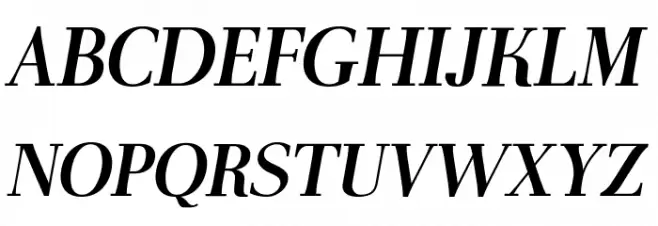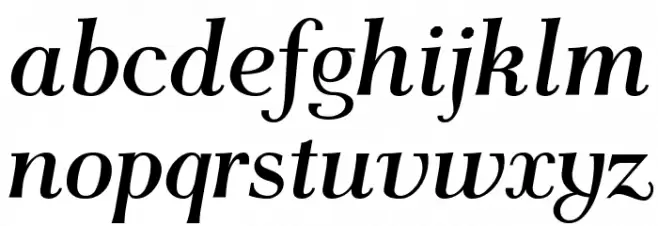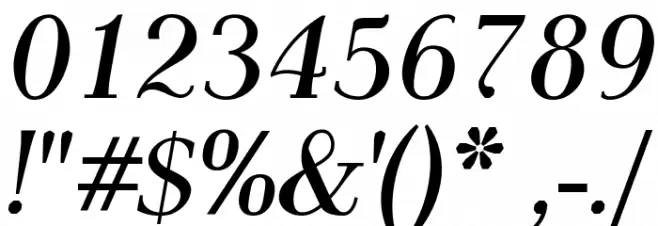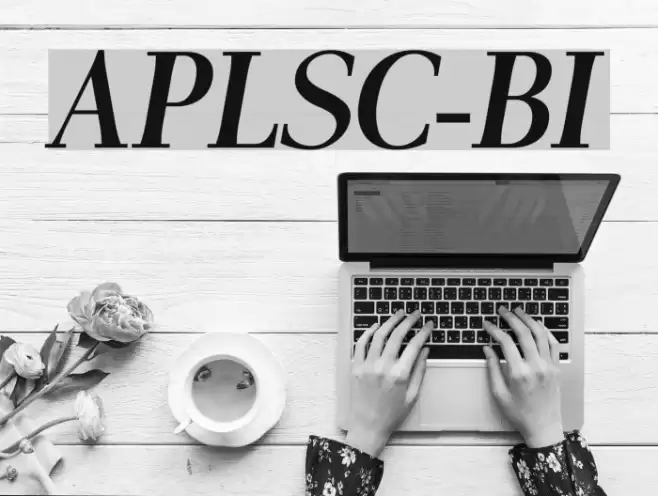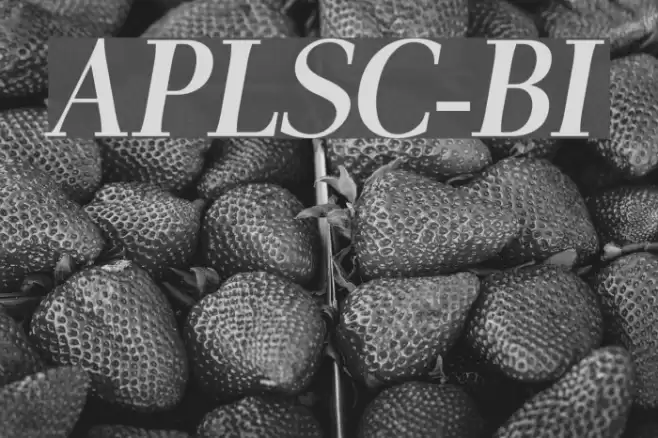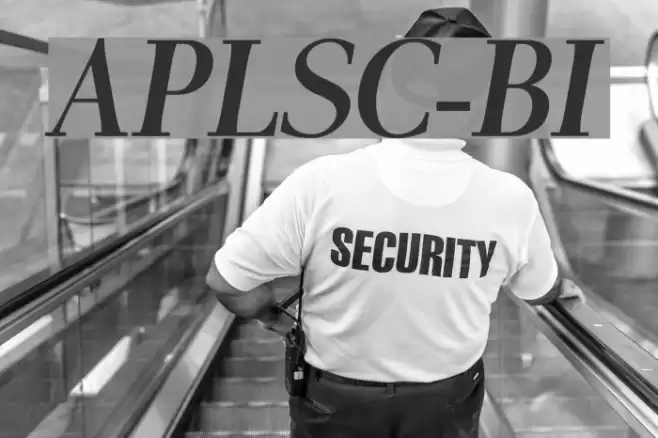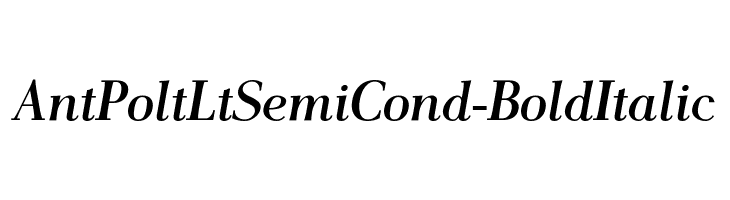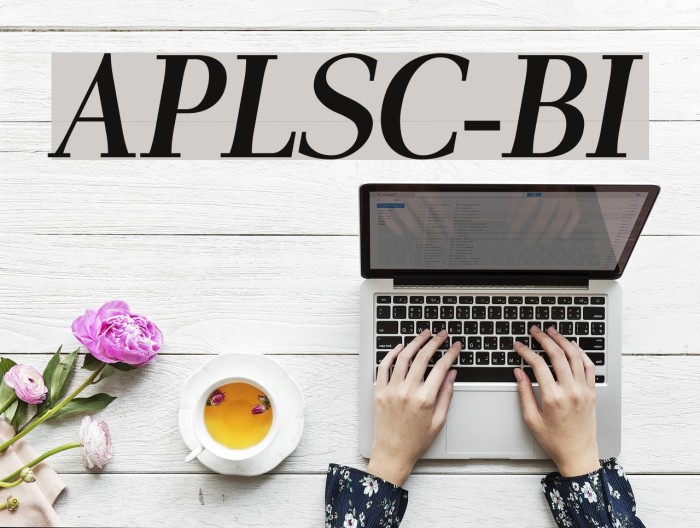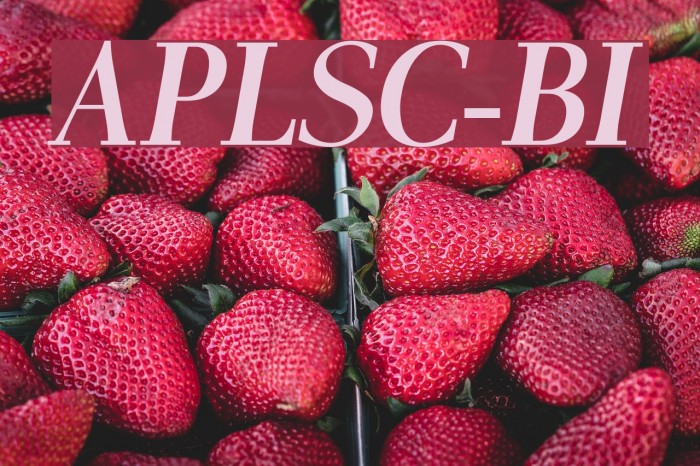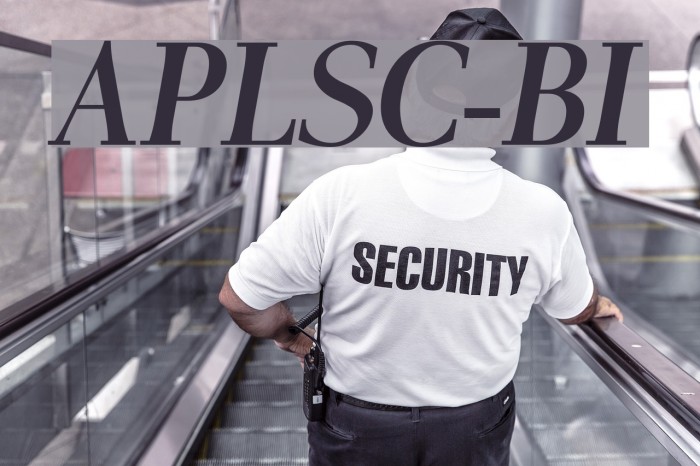
AntPoltLtSemiCond-BoldItalic
This font features a sophisticated and elegant design, characterized by its semi-condensed letterforms and bold italic style. The uppercase letters exhibit a strong presence with slightly elongated serifs, while the lowercase letters maintain a smooth and flowing appearance. The numerals are well-proportioned, ensuring readability and balance. Special characters are crafted with attention to detail, enhancing the overall aesthetic. The font's contrast is moderate, with noticeable differences between thick and thin strokes, adding to its dynamic and stylish look.
A bold italic serif font with semi-condensed letterforms and moderate contrast.
- Proposed Projects: Ideal for luxury branding, editorial design, fashion magazines, and elegant invitations.
- Category: Serif
- Width: Condensed
- Overall Style: Classic